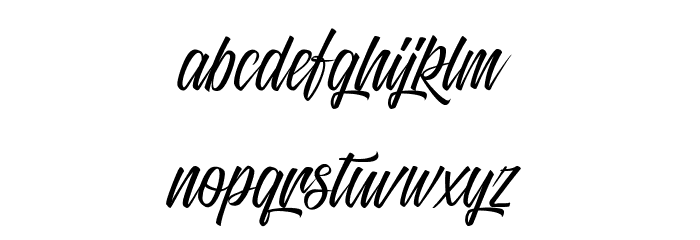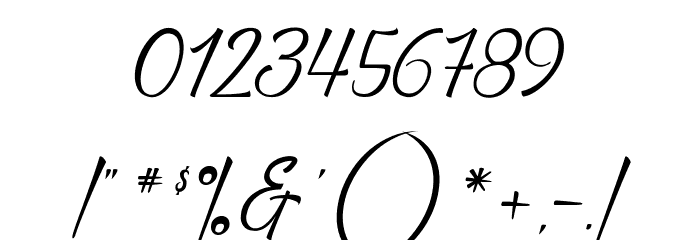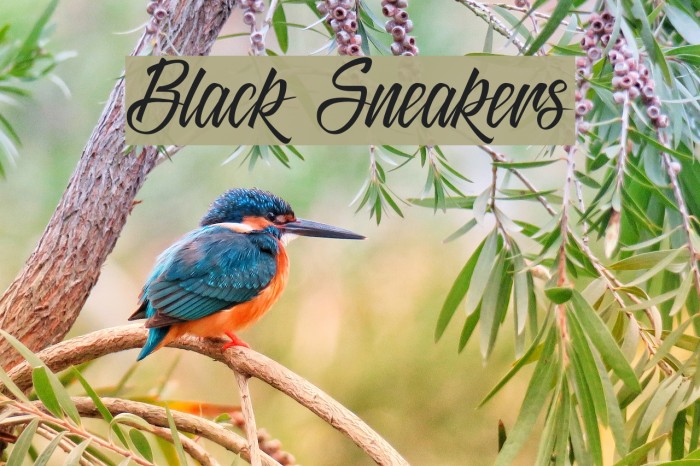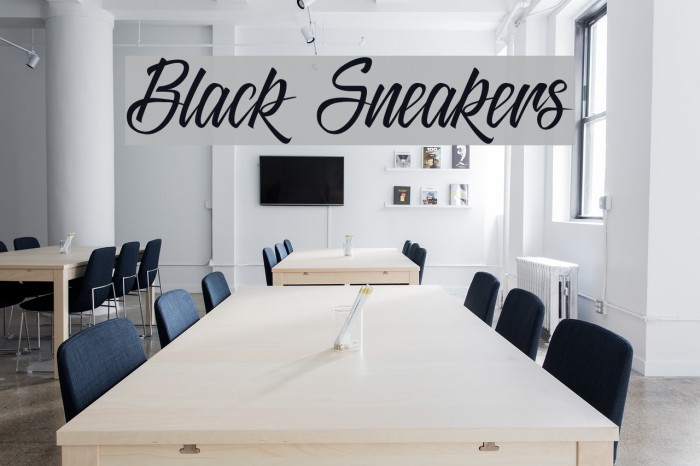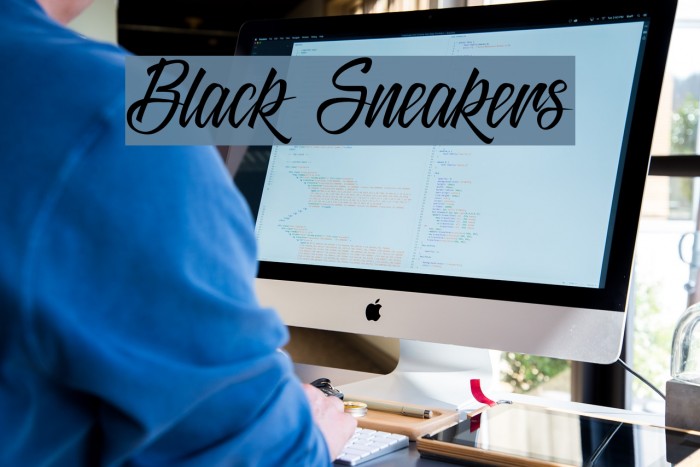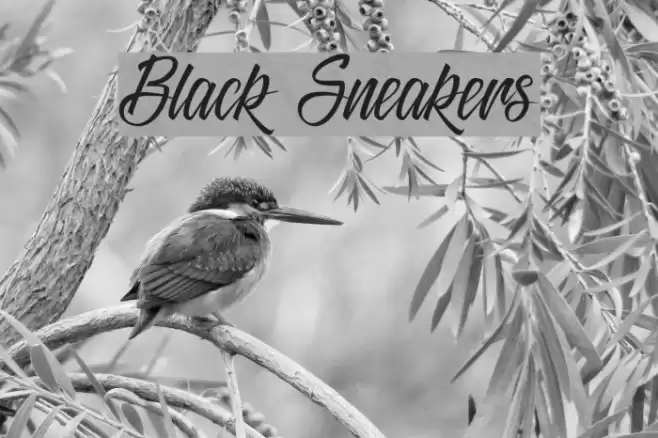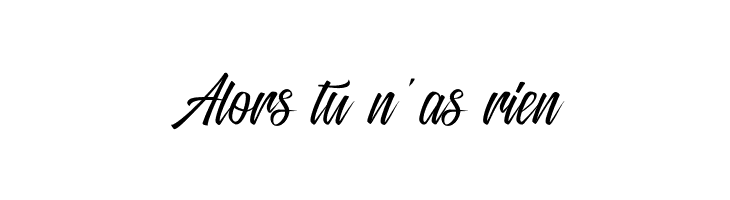
Black Sneakers Font
This font features a dynamic and flowing script style, characterized by its elegant and slightly slanted letterforms. The uppercase letters are bold and expressive, with sweeping curves and distinctive flourishes that add a sense of movement and sophistication. The lowercase letters maintain a consistent rhythm, with smooth connections between characters, enhancing readability while preserving the font's artistic flair. The numerals are well-integrated, matching the overall aesthetic with their graceful curves. Special characters are thoughtfully designed, complementing the font's cohesive look. This font's unique style makes it suitable for projects that require a touch of elegance and creativity.
A dynamic and elegant script font with flowing, expressive letterforms.
- Proposed Projects: Ideal for wedding invitations, branding, logos, and elegant packaging designs.
- Category: Script
- Overall Style: Elegant, Artistic
- Use Case: Logos, Invitations, Branding